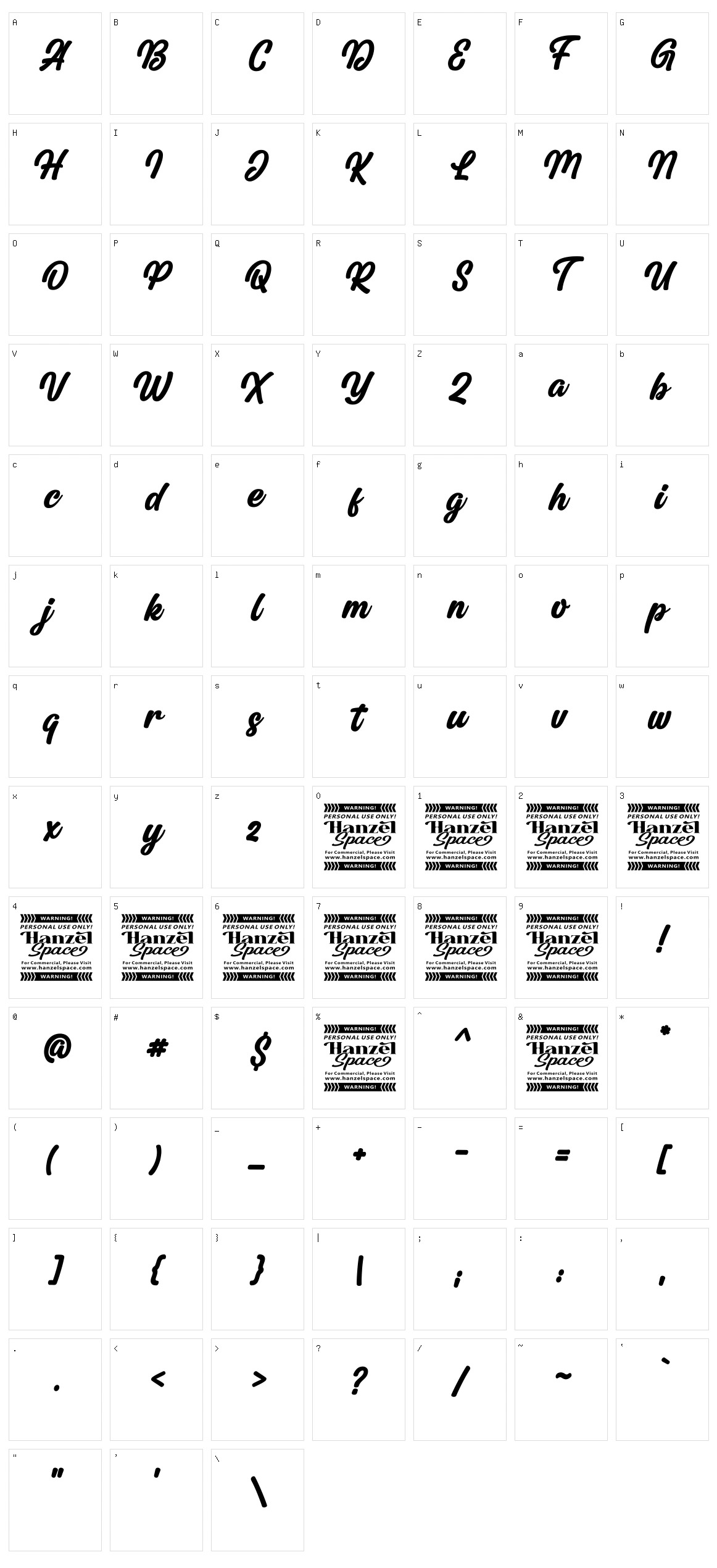
We're Introducing the "Brilliant" Font we created in 2023. To talk more about the character of this font,
please see a preview of how each Glyph in the font will look when applied to a design. This font
has a vintage touch and a modern look to each letter, slightly rounded and neat shapes in each curve,
plus a Stylistic feature at the end of the letters.
We design this font in such a way that it is suitable when used for design projects so that it looks very attractive.
And you can also use this font for logos, branding, brochures, names on product packaging and so on.